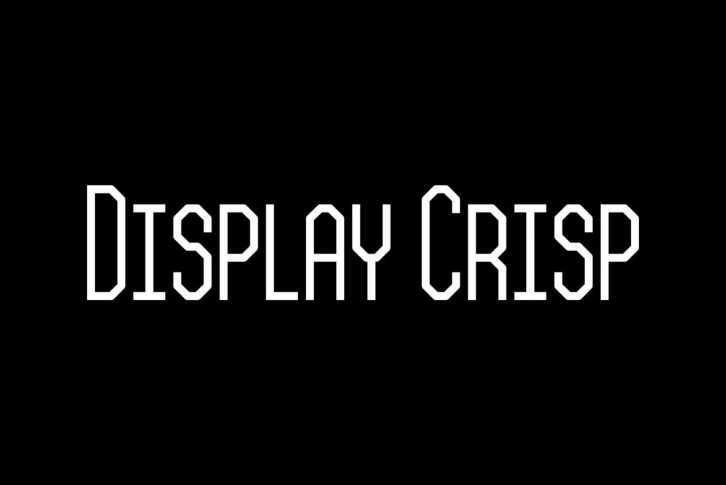
Display Crisp is a display font not intended for text use. It was designed specifically for display, headline, logotype, branding, and similar applications. Display Crisp has tall and short cap alphabets, numbers, and punctuation.